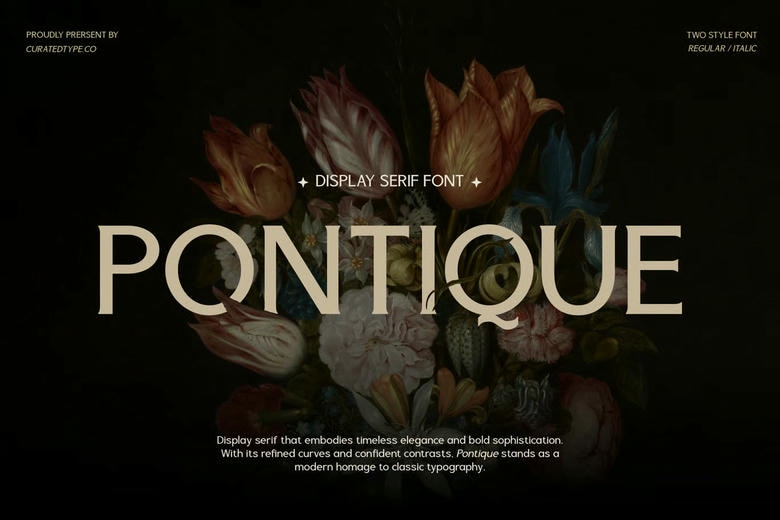
Pontique Font
Pontique Font is an advanced display serif with timeless elegance that is bold. It is inspired by neoclassicism in typography, with contrast strokes and clean and sharp serifs that take up the space without screaming. The balance of the design between different widths of strokes and the confident and flowing curves gives the rhythm of the visual, both statues and organic. The large types, especially the broad-shouldered ‘O’, the specially swashed Q, are a contemporary tribute to classical proportions, and would suit best in headlines that must have a touch of pomp.
Pontique is a high-end designed building that is designed to be versatile besides its structural beauty. The typeface contains both a regular weight and a gorgeous Italic, and the transitions between the authoritative editorial headers and the fragile romantic sub-headings are just flawless. Having its full character set and multi-lingualism, this font is best suited to the luxury branding, fashion features, wedding stationery and packaging design where the typography becomes the focal point of the visual identity.
Pontique Display Font